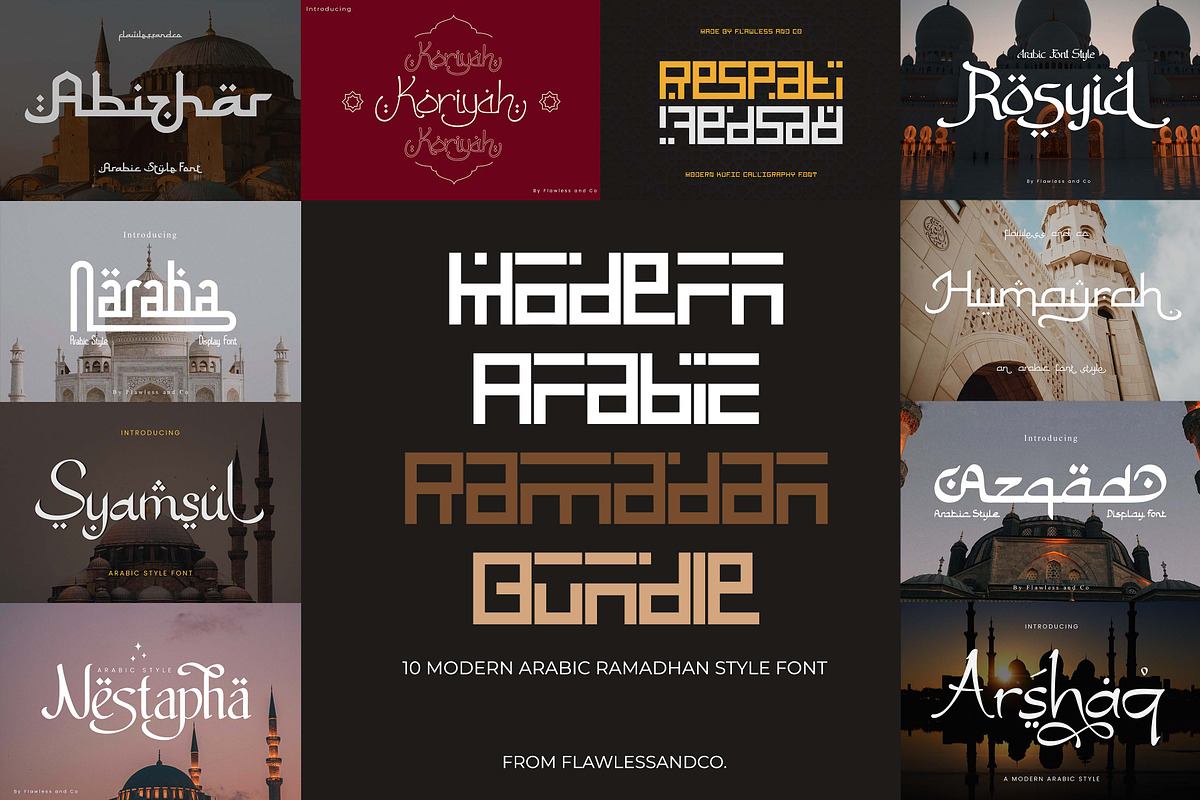
Bundle Font Arabic Ramadhan Free Download is a beautiful and versatile Arabic font collection inspired by the elegance and spirituality of the Ramadhan season. Designed with attention to traditional Arabic calligraphy and modern style, this bundle is perfect for greeting cards, invitations, posters, social media content, and any project celebrating Ramadhan, Islamic culture, or festive events.
The bundle includes a range of styles that allow you to combine decorative and classic Arabic letterforms for a perfect balance between tradition and contemporary design. Whether you're working on a spiritual branding project or creating festive holiday content, this font collection adds authenticity and charm to your designs.